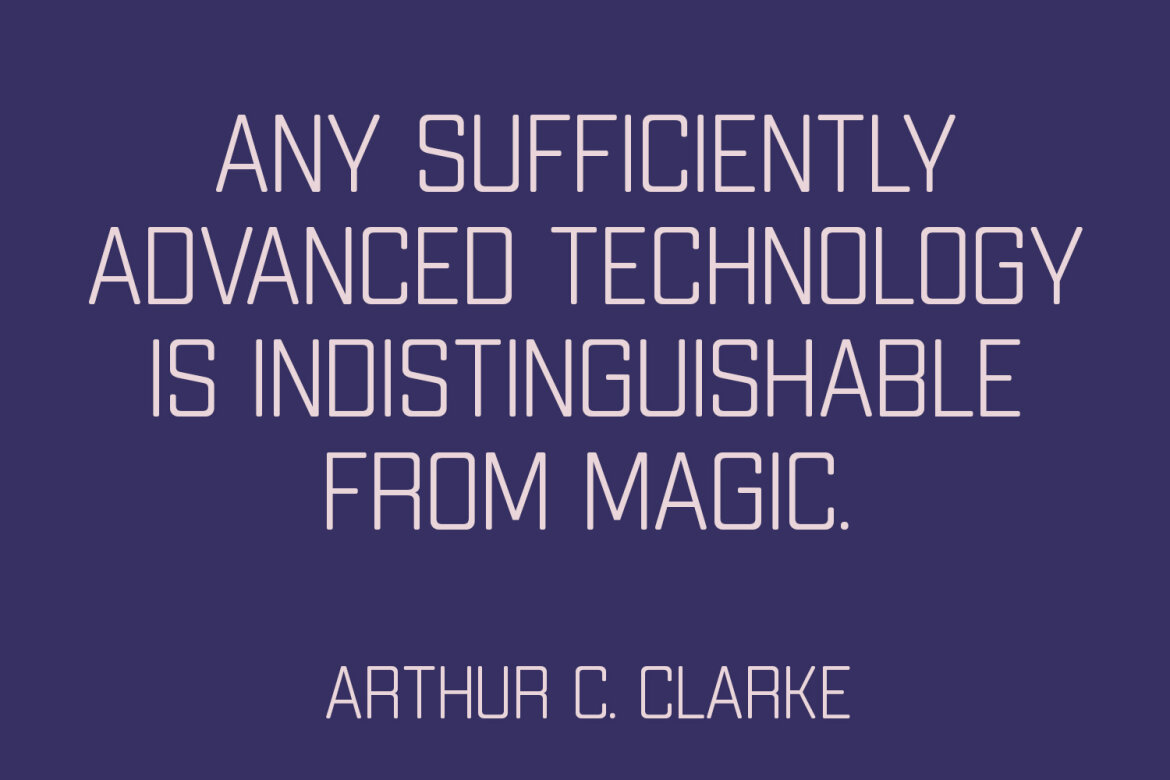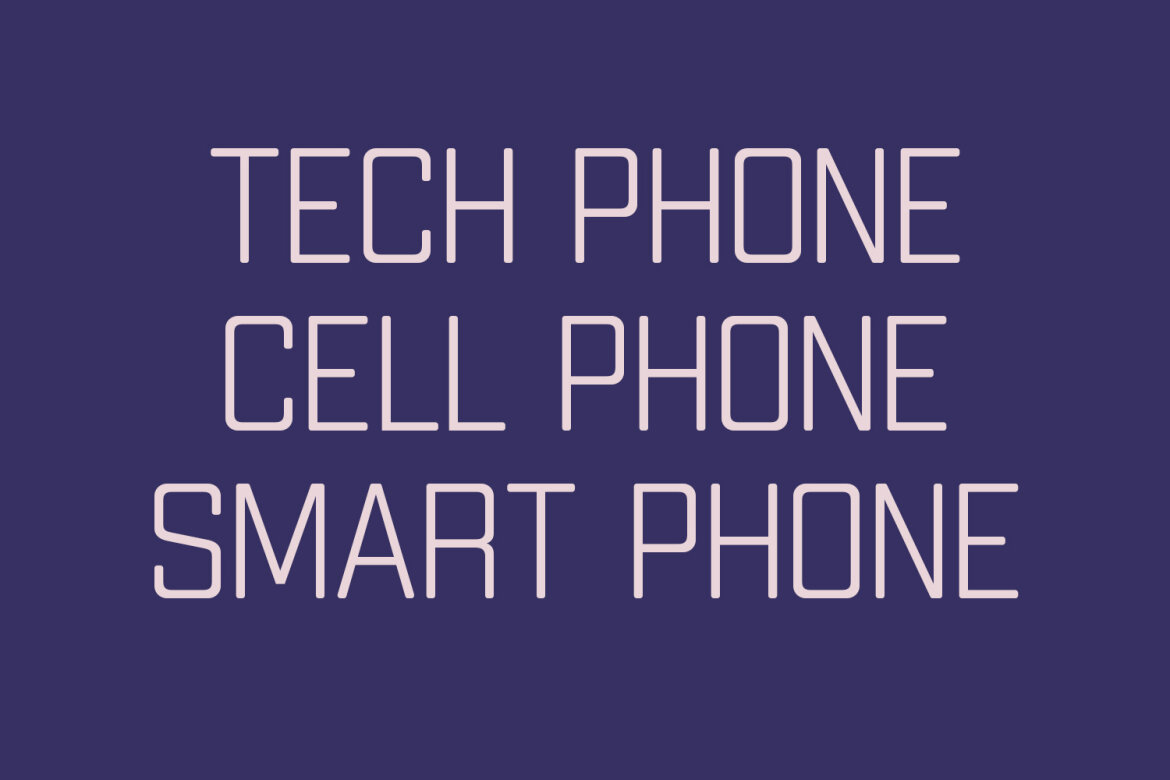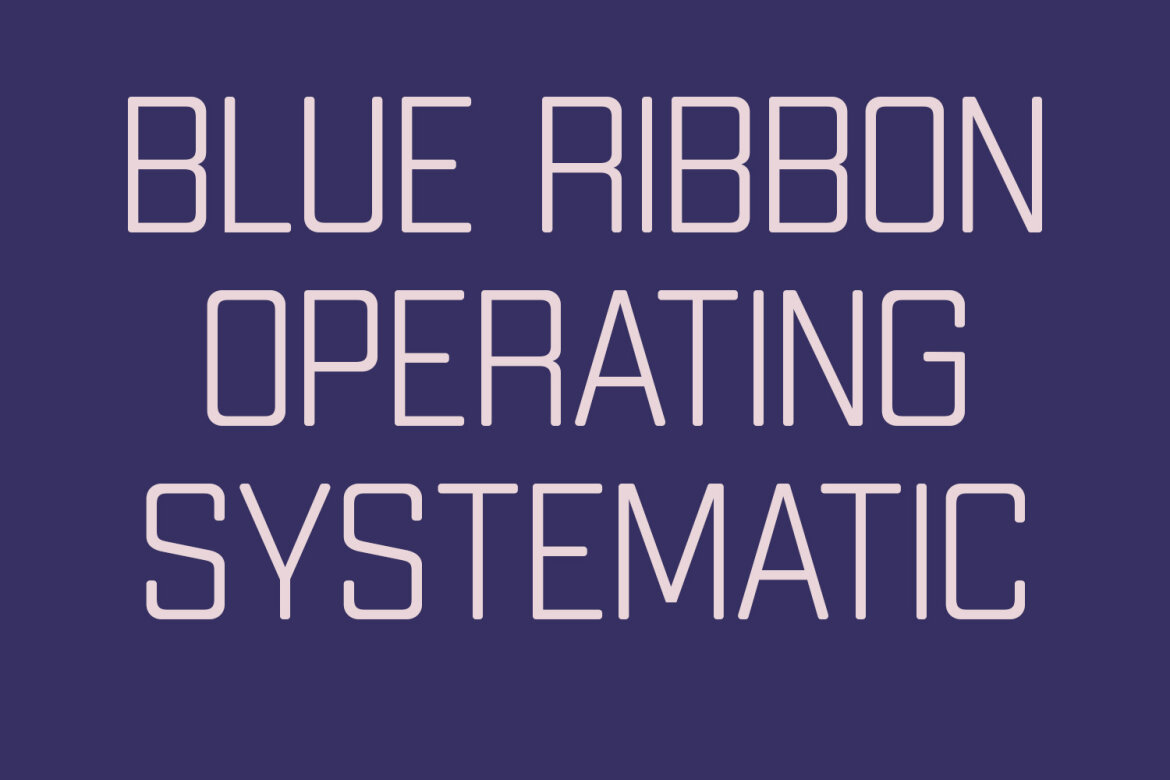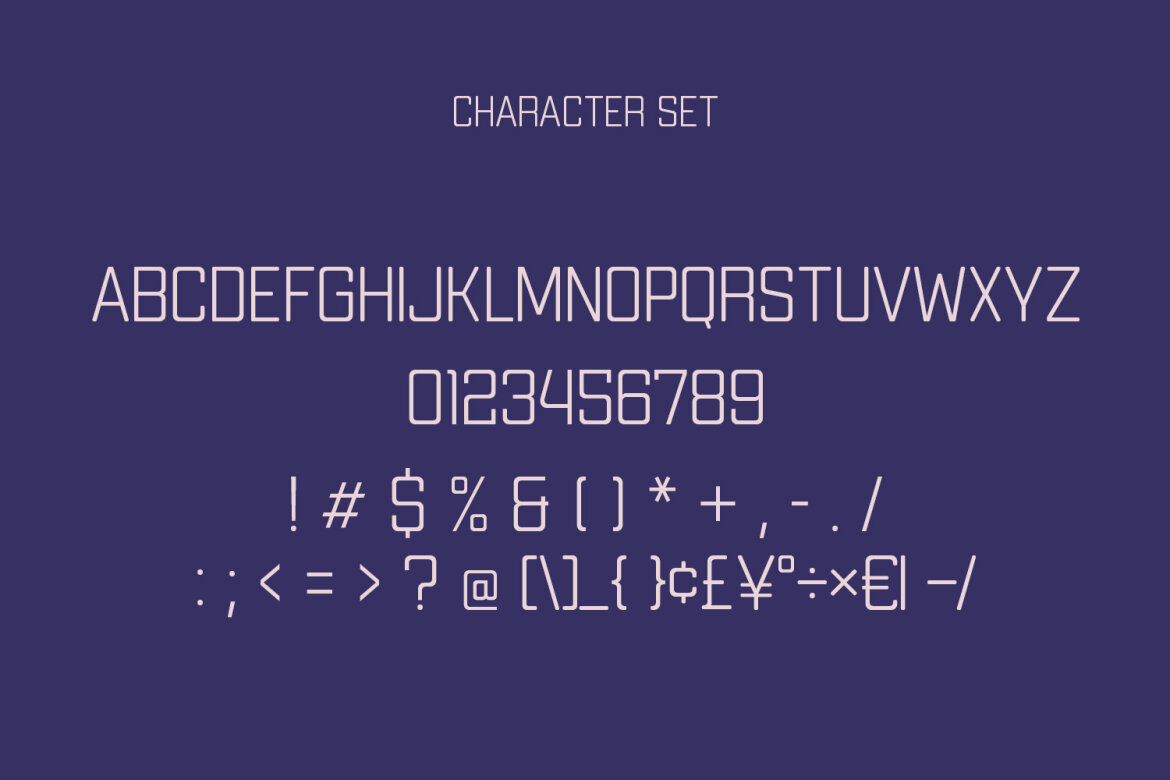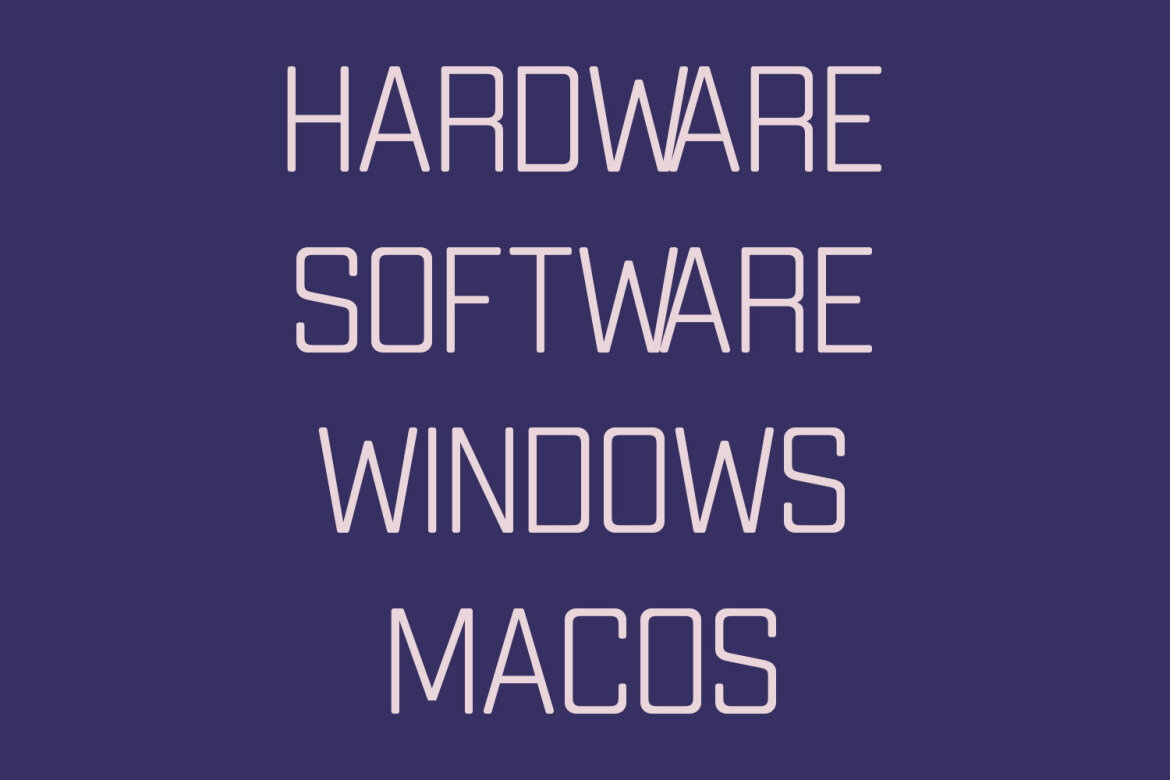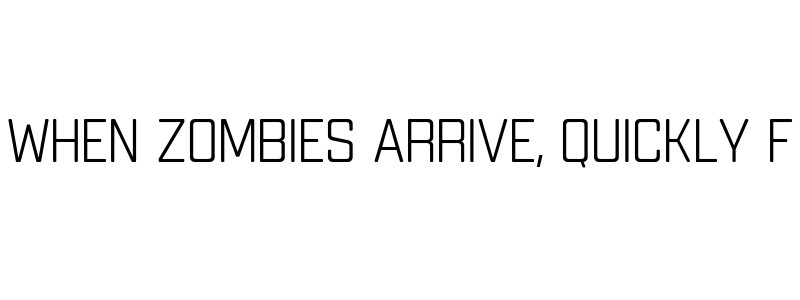
Skitsy Industrial FREE Font
Skitsy
Skitsy is an industrial tech genre sans display font. With regular stroke, fun character with a bit of ligatures and alternates. To give you an extra creative work. Skitsy font support multilingual more than 100+ language. This font is good for logo design, Social media, Movie Titles, Books Titles, a short text even a long text letter and good for your secondary text font with script or serif. Make a stunning work with Skitsy font.